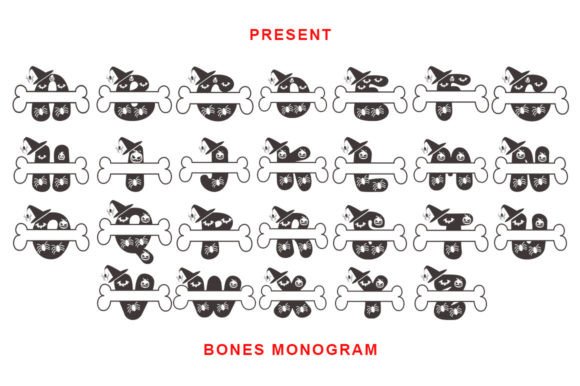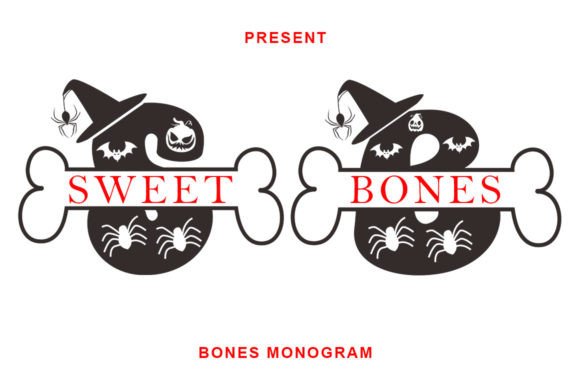
Bones Font: The Spookiest Monogram Decorative Font for Halloween Designs
Are you looking for a font that will add a touch of spookiness to your Halloween designs? Look no further than the Bones Font! This incredibly unique and decorative monogram font is perfect for crafters and designers who want to create eye-catching and eerie designs. In this article, we’ll dive into the features and benefits of the Bones Font, and explore how you can use it to make your Halloween designs come to life.
What is Bones Font?
Bones Font is a monogram decorative font that is designed to add a touch of spookiness to your designs. With its unique and eerie style, it’s perfect for Halloween-themed designs, but can also be used for other occasions that require a touch of macabre elegance. The font features intricate and detailed designs, with a focus on bones, skulls, and other spooky elements.
Features of Bones Font
- Unique and Spooky Design: The Bones Font features a unique and spooky design that is sure to grab attention. Its intricate details and focus on bones and skulls make it perfect for Halloween-themed designs.
- Monogram Decorative Font: The font is a monogram decorative font, which means it’s designed to be used as a decorative element in your designs.
- High-Quality Design: The font is designed with high-quality graphics, ensuring that it looks great even at large sizes.
Benefits of Using Bones Font
So, why should you use the Bones Font in your designs? Here are just a few benefits:
- Adds a Touch of Spookiness: The Bones Font adds a touch of spookiness to your designs, making them perfect for Halloween-themed designs.
- Increases Engagement: The unique and eye-catching design of the Bones Font is sure to grab attention and increase engagement.
- Versatile: The font can be used for a variety of design projects, from invitations and posters to social media graphics and more.
- Easy to Pair with Other Fonts: The Bones Font is easy to pair with other fonts, making it versatile and easy to use.
How to Use Bones Font in Your Designs
Using the Bones Font in your designs is easy! Here are a few tips:
- Use it as a Title Font: Use the Bones Font as a title font for your designs, such as for posters, invitations, or social media graphics.
- Add it to Your Halloween Designs: Add the Bones Font to your Halloween designs, such as for Halloween party invitations, pumpkin carvings, or spooky decorations.
- Pair it with Other Fonts: Pair the Bones Font with other fonts to create a unique and eye-catching design.
- Experiment with Different Colors: Experiment with different colors to find the perfect combination for your design.
Tips and Tricks for Working with Bones Font
Here are a few tips and tricks for working with the Bones Font:
- Use a Large Size: Use a large size to ensure that the font is legible and eye-catching.
- Experiment with Different Effects: Experiment with different effects, such as shadows or outlines, to add depth and interest to your design.
- Keep it Simple: Keep your design simple and focused on the font to ensure that it stands out.
| Font Name | Bones Font |
| Author | George Studio |
The Bones Font is an incredibly unique and spooky monogram decorative font that is perfect for Halloween designs. With its intricate details and focus on bones and skulls, it’s sure to grab attention and add a touch of spookiness to your designs. Whether you’re a designer or crafter, the Bones Font is a great addition to your font collection. So why not give it a try and see how it can make your designs come to life?